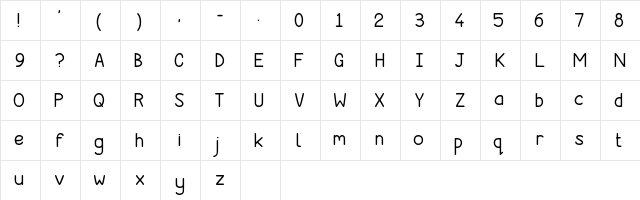
The Students Teacher Regular
Design Context for The Students Teacher Typeface
The Students Teacher takes a measured approach to typography — its balanced proportions and neutral character make it a reliable workhorse for both digital and print work.